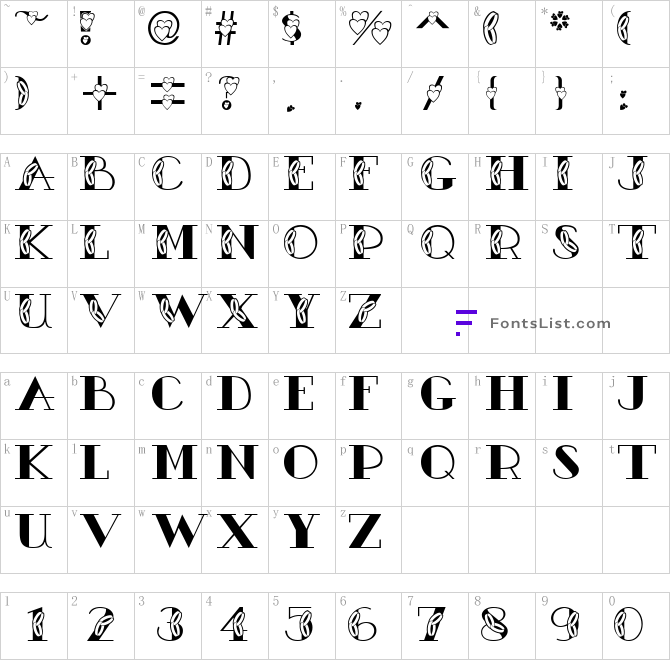
- Font Name:AC3-WeddingBands
- Full Name:AC3 WeddingBands
AC3-WeddingBands.ttf is a very beautiful artistic font, AC3-WeddingBands.ttf is widely used in the design and printing of various books and pictures,AC3-WeddingBands.ttf has a strong visual impact,AC3-WeddingBands.ttf is a commonly used font in newspapers, magazines and books, and is used in posters, e-commerce Poster design, store design, logo design, font design and other fields.AC3-WeddingBands.